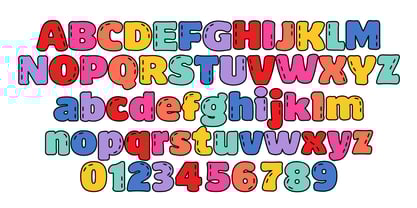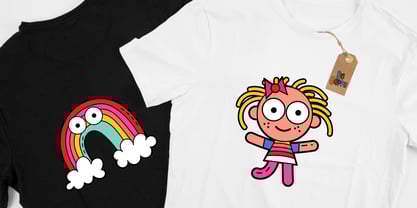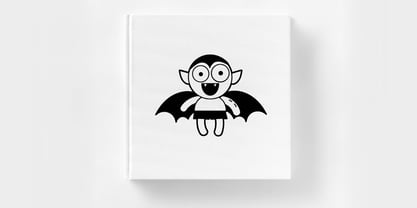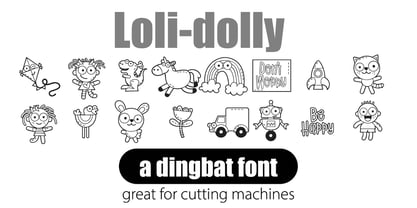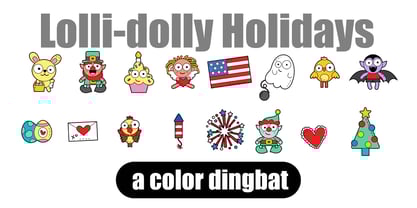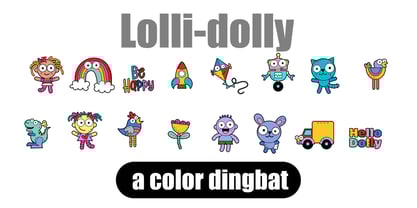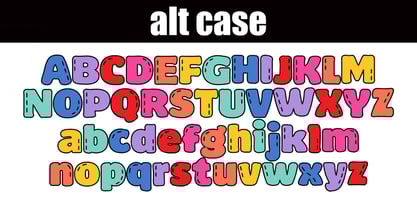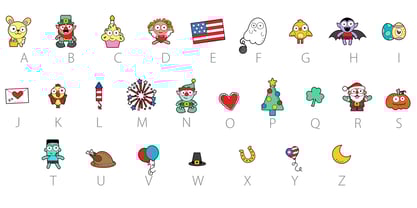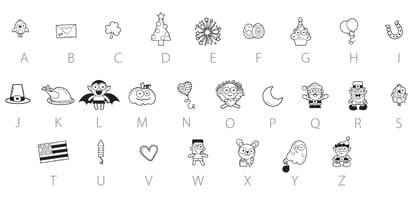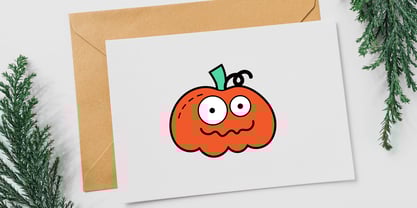
Lolidolly
by Illustration Ink
The Lolidolly Font Family was designed by Illustration Ink and published by Illustration Ink. Lolidolly contains 5 styles and family package options. More about this family
Loli-Dolly! This font bundle features the cutest illustrated dolls, toys, and holiday-related imagery. This bundle has 1 full-color font, with an alt case of additional colors of each letter that you can access through your system glyph map, 2 full-color dingbats, and 2 regular dingbats.
Lolidolly